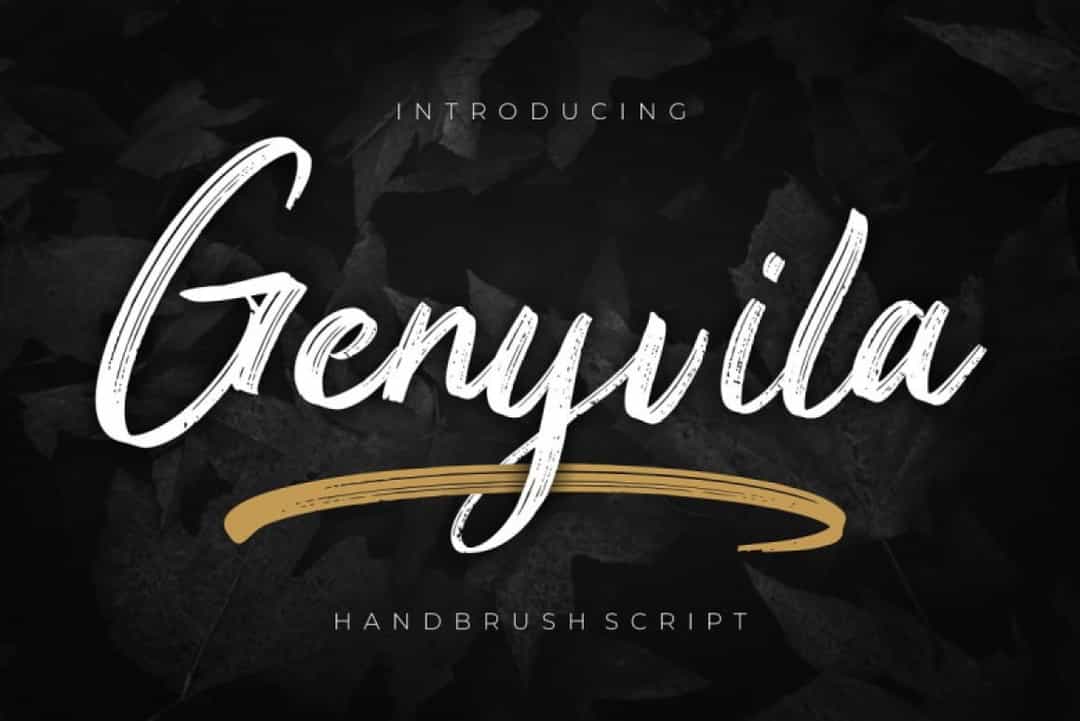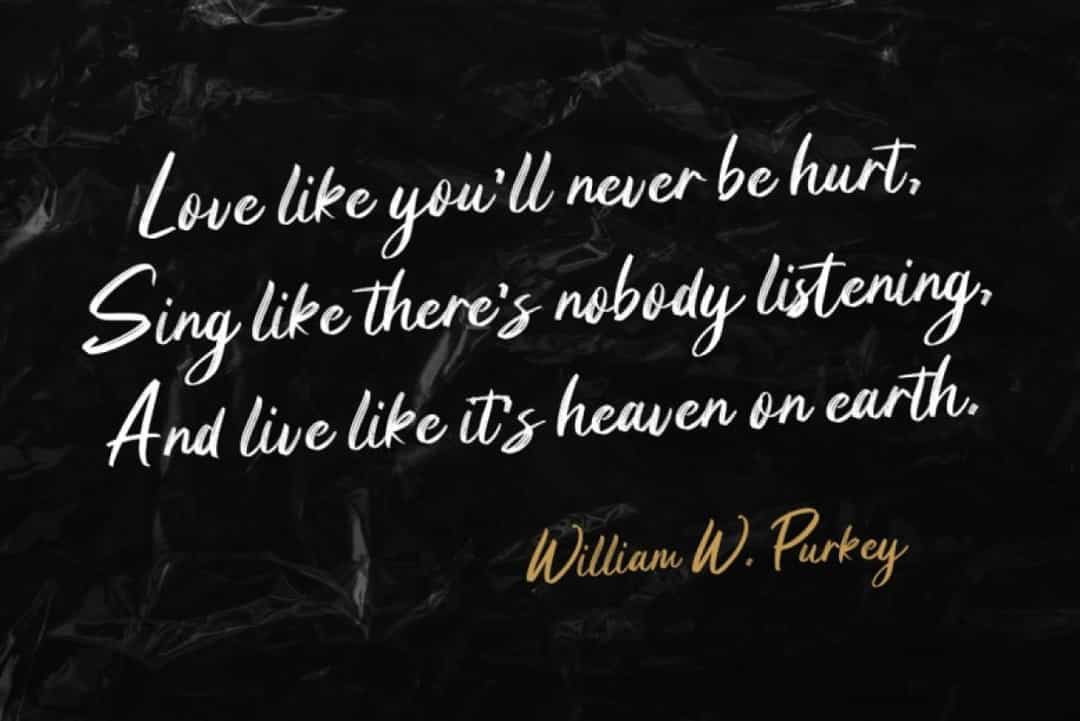
Discover Genyvila Font, part of the Brush collection—a versatile and unique font perfect for adding a personal touch to your projects. Download it for free and enjoy crafting designs with style, from invitations to social media posts. This font is available exclusively for personal use, giving you the freedom to create without limits. Unlock your creativity with Genyvila Font today!
Introduce Genyvila Hand Brush font which features stylish and bold scratch design is perfect for your next design project. Perfectly suitable for movie titles, logos blogs brand identity book titles social media wedding invitations branding cards or simply adding it into any design project, Genyvila Hand brush font makes an eye-catching statement suitable for multiple occasions and scenarios.